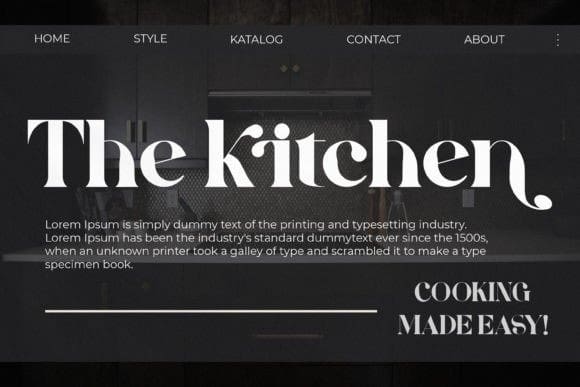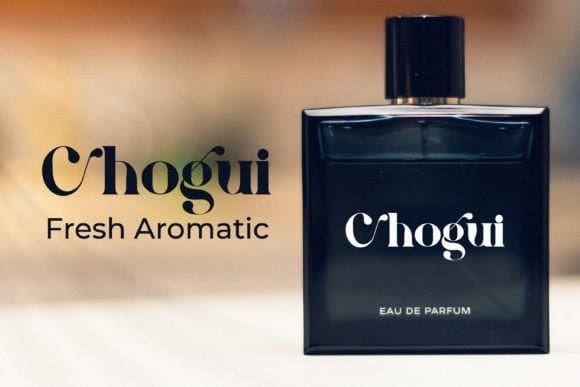
Grıbson Font
Grıbson Font is a bold and assertive serif font. No matter the topic, this font will be an incredible asset to your fonts’ library, as it has the potential to elevate any creation.